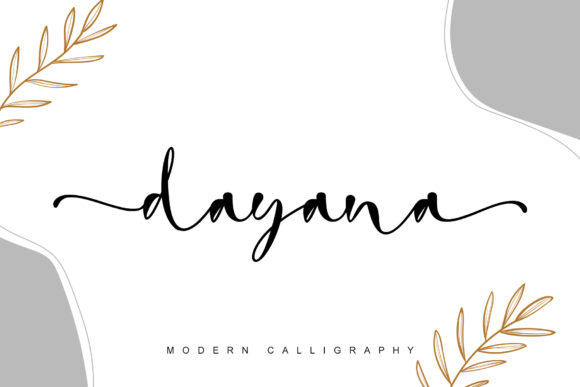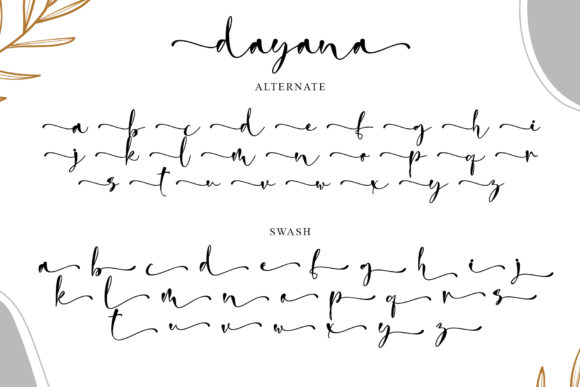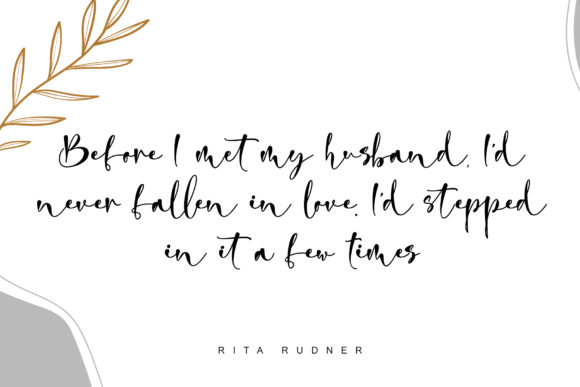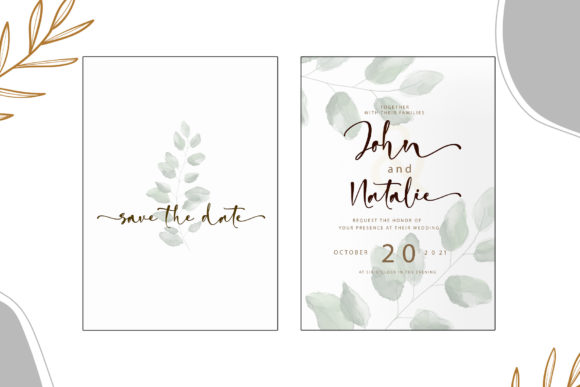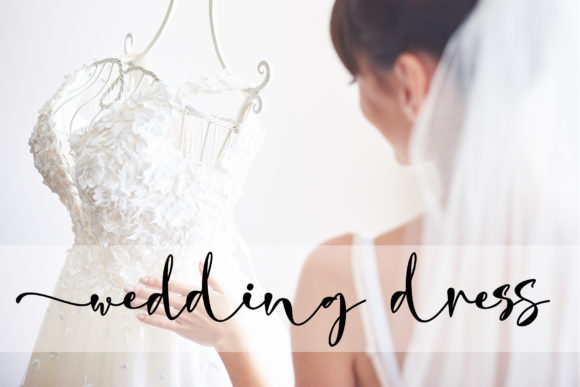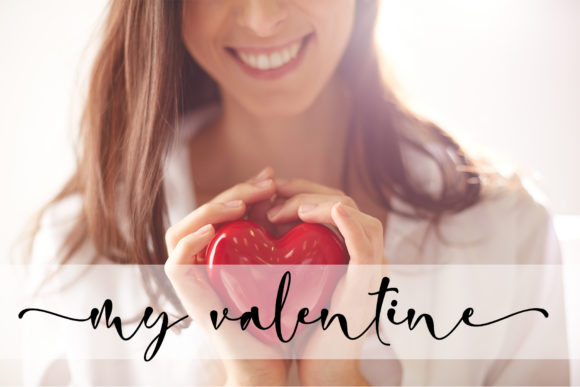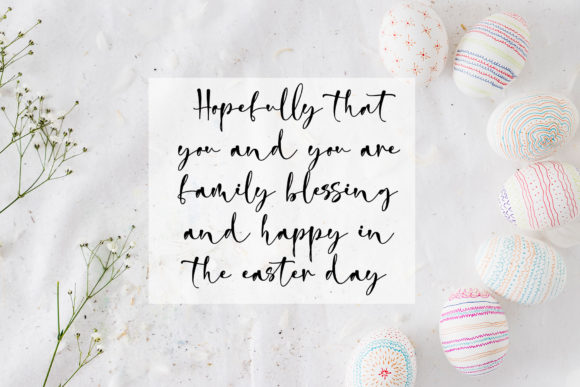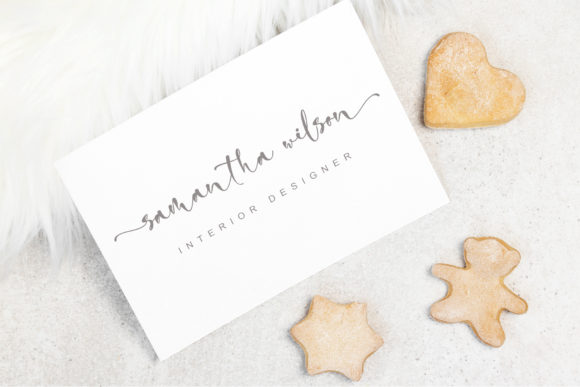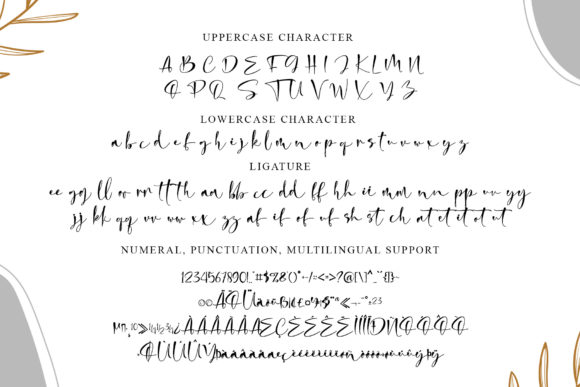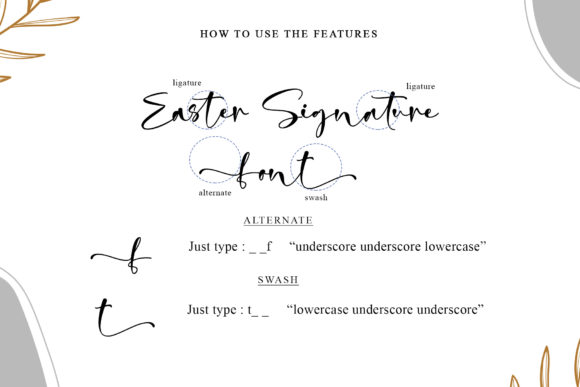
Dayana Font
About Dayana Font
Dayana is a truly exquisite and stylish script font that exudes elegance and charm. With its incredibly elegant and flowing design, it adds a touch of sophistication to any design project, making it a perfect fit for various purposes, including wedding invitations, thank you cards, quotes, greeting cards, logos, business cards, and more.
The font’s beautifully balanced and well-crafted characters create a sense of refinement and grace, making it a top choice for any project that requires a personalized and sophisticated touch. Whether you’re designing a high-end wedding invitation, a luxurious business card, or a captivating logo, Dayana will elevate your designs to new heights.
The font’s PUA encoding is an additional advantage, allowing you to access all of the glyphs and swashes with ease. This feature provides you with a wealth of creative possibilities, enabling you to add unique flourishes and decorative elements that set your designs apart and make them truly one-of-a-kind.
Dayana’s versatility makes it suitable for a wide range of design applications, from romantic and charming wedding invitations to stylish and professional business cards. Its smooth lines and elegant curves create a timeless and sophisticated look that leaves a lasting impression on your audience.
With Dayana, you have a tool that brings a touch of luxury and elegance to your designs, making them stand out and leaving a memorable impact on your clients and customers. Its stylish and incredibly elegant appearance makes it an ideal choice for designers who value both beauty and professionalism.
In summary, Dayana is a stylish and incredibly elegant script font that adds a touch of sophistication to your designs. Whether you’re working on wedding invitations, quotes, logos, or any other project that requires a customized touch, Dayana’s graceful and flowing design, along with its PUA encoding, ensures you have the flexibility and elegance needed to create stunning and personalized creations. Embrace the beauty of Dayana and let your designs radiate with timeless elegance.